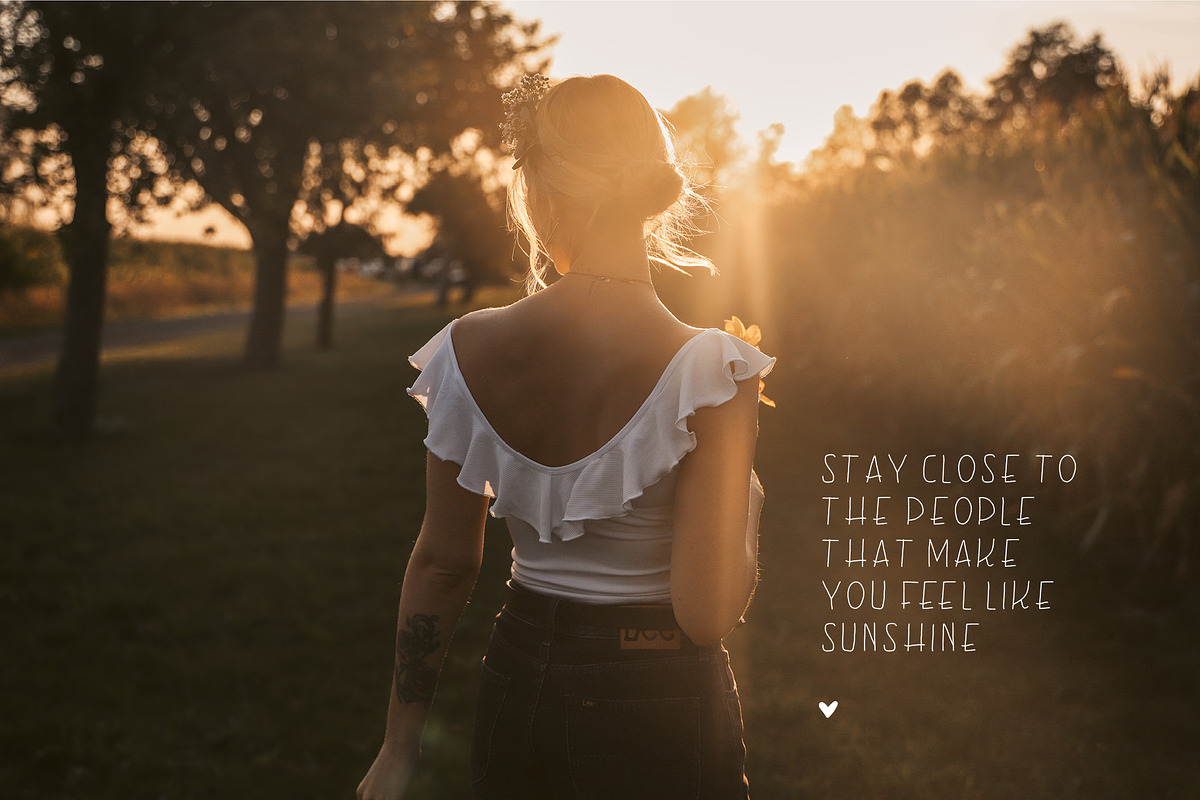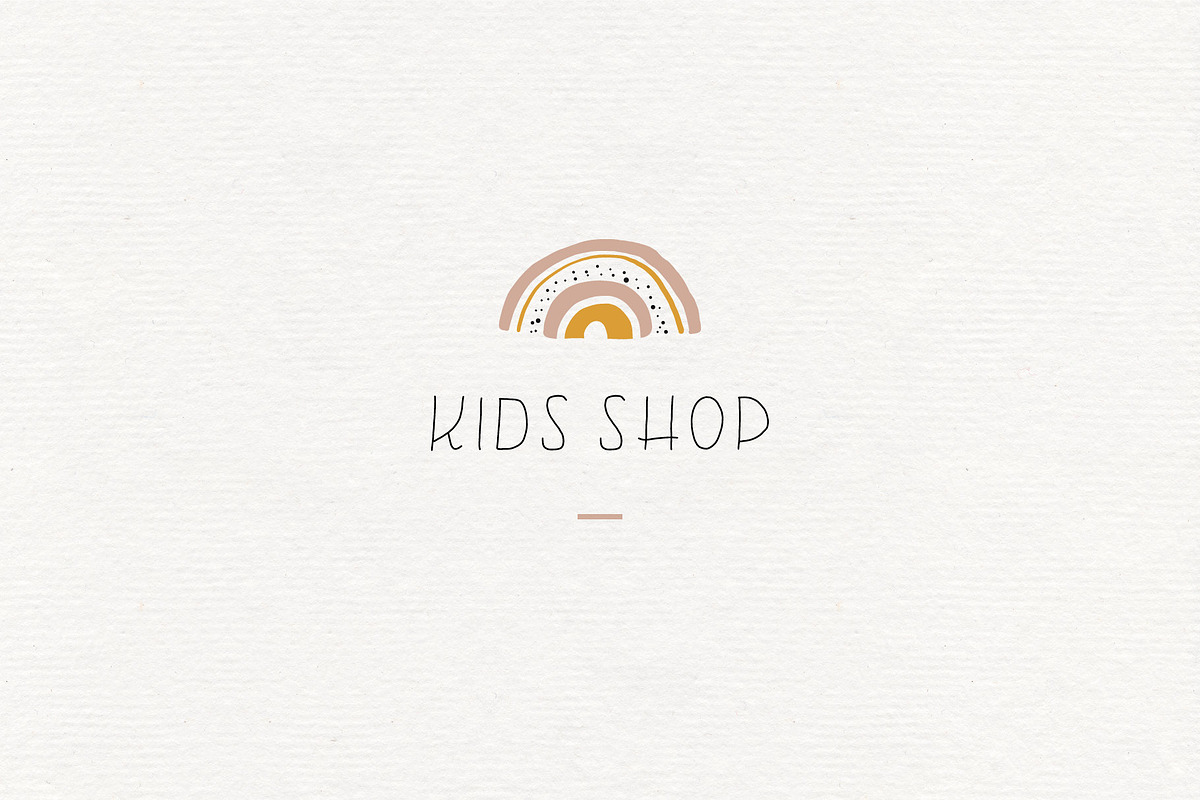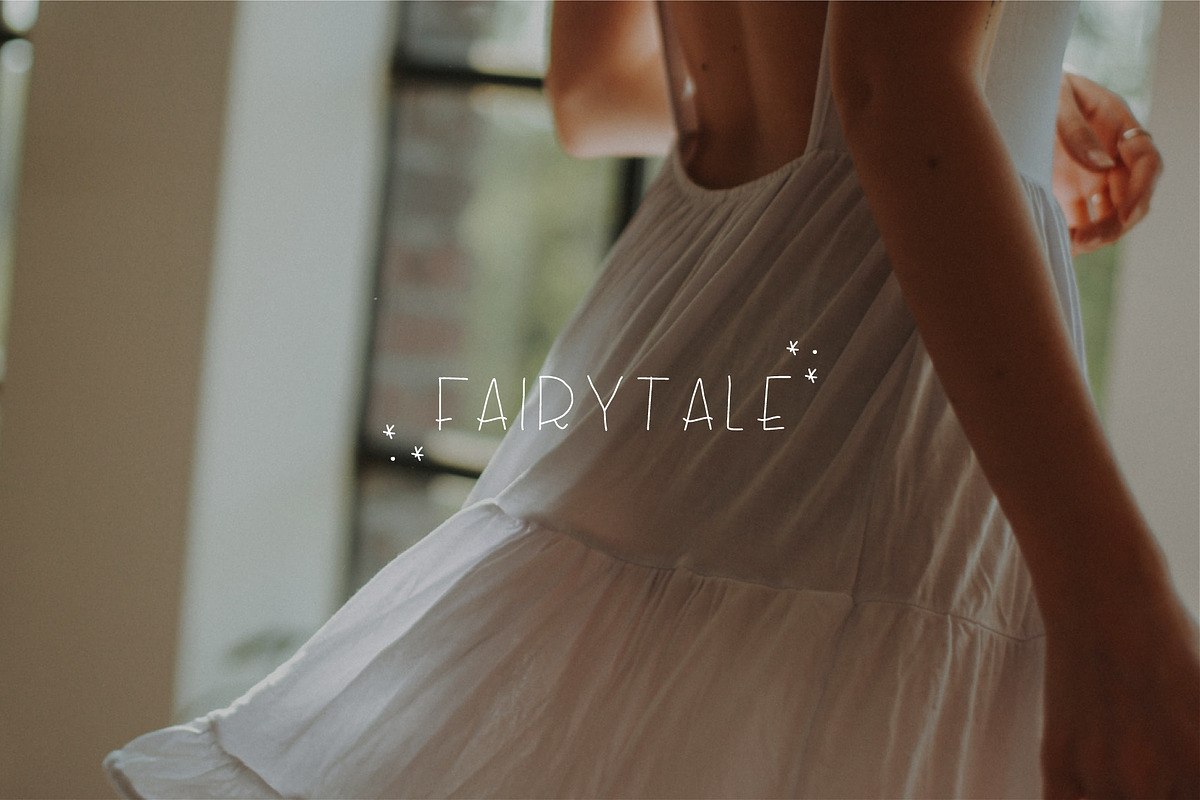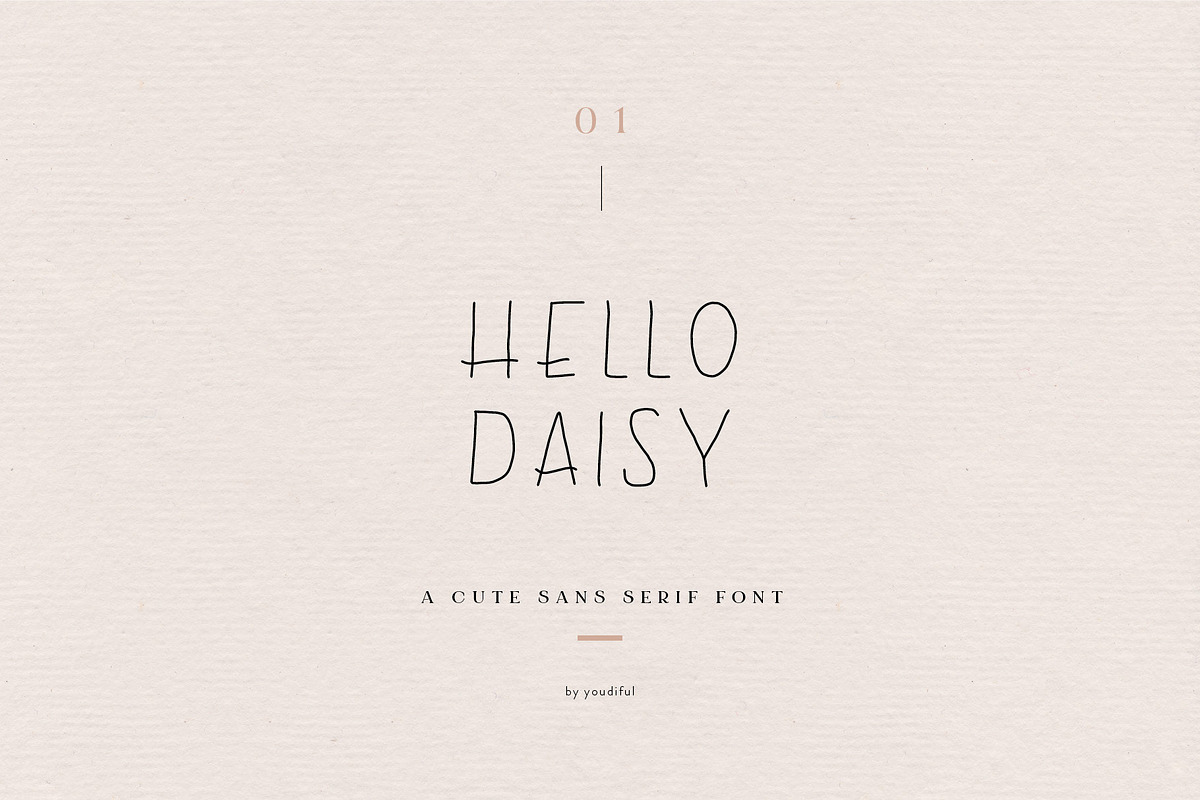
Hello Daisy Font
This cute sans serif font is perfect for your logo, headlines, presentations or beautiful products.
Why Hello Daisy Font is worth a look
Hello Daisy Font by youdiful creation fits naturally into Branding, posters, packaging, typography.